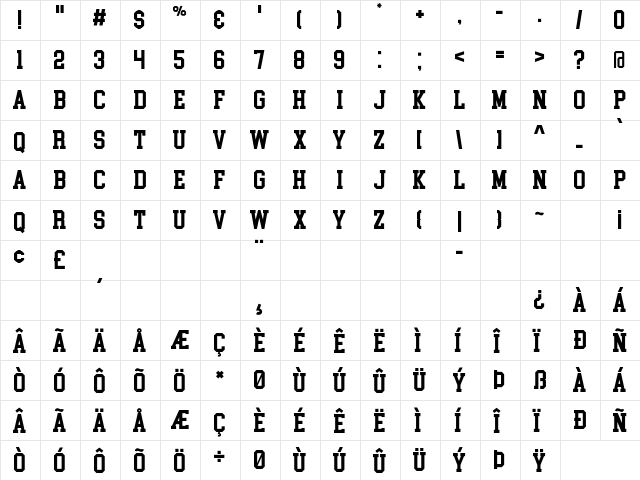
College Block Regular
Design Context for College Block Typeface
College Block brings high-energy athletic personality to the page — its confident, muscular forms are built for impact.
Built for sports team identities, athletic apparel, event posters, and high-energy promotional material.
Pro Tip: College Block thrives on contrast — try it large, bold, and tight against a clean background for maximum visual impact.